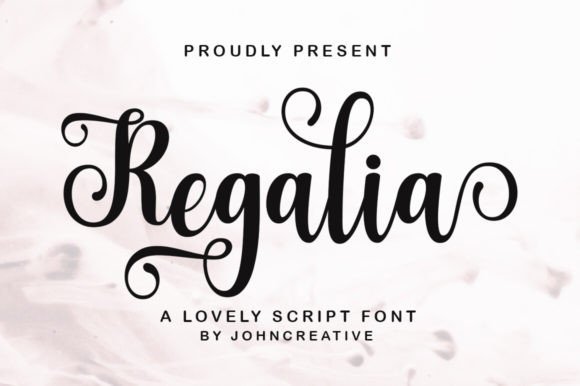
Step into the realm of exquisite typography with Regalia Script, an enchanting handwritten font that will leave you breathless. Its graceful strokes and elegant curves exude a timeless charm, adding a touch of sophistication to your creative endeavors.
With Regalia Script, your words will dance across the page, captivating your audience with their beauty and grace. Its flowing lines and distinctive style make it perfect for logos, branding, invitations, and any project that demands a touch of elegance.
As a PUA encoded font, Regalia Script grants you access to a treasure trove of glyphs and ligatures, empowering you to unleash your creativity and craft truly unique designs. Each letter, meticulously crafted by the hand of mr.johncreative.co1, harmonizes perfectly, ensuring a visually stunning experience.
Whether you're a seasoned designer or just starting your creative journey, Regalia Script will elevate your projects to new heights. Its versatility knows no bounds, making it the perfect choice for a wide range of applications. From delicate wedding invitations to eye-catching social media graphics, this font will transform your words into works of art.
Indulge in the beauty of Regalia Script and let your creativity soar. Its timeless style and endless possibilities will inspire you to create designs that leave a lasting impression. Embrace the elegance and let your words shine with Regalia Script.